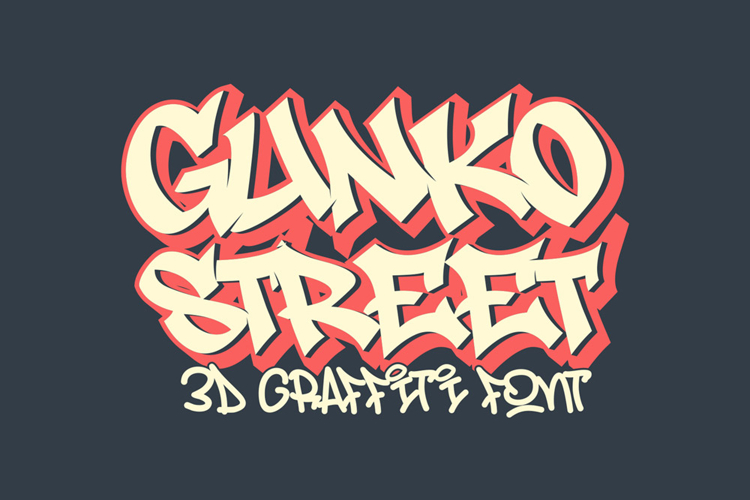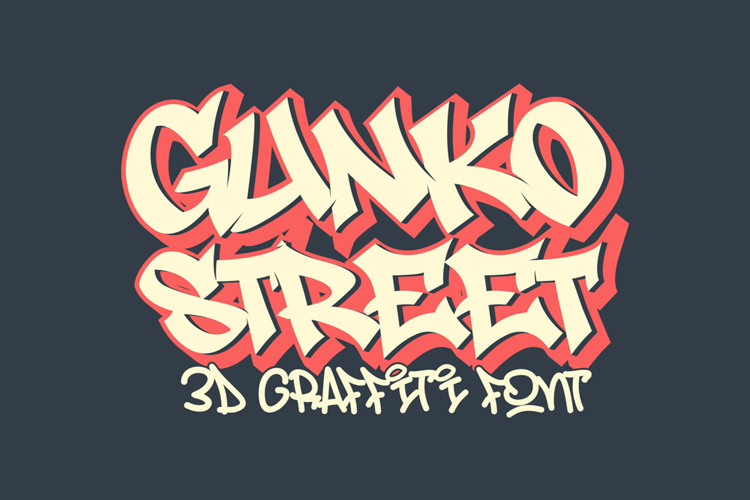
Gunko Street - 3D Layered Graffiti Font
Gunko Street is a striking 3D layered graffiti font built for designers who want loud, dimensional typography with a rebellious edge. With uppercase, lowercase, numbers, and punctuations, plus three styles—Base, Outline, and Shadow—you can create bold street-inspired headlines, poster art, game titles, and digital covers that pop off the screen.
Make Your Designs Pop with 3D Graffiti Energy If you want your text to command attention, Gunko Street delivers. Its layered construction allows you to mix and match styles for depth and color variation, making it perfect for urban-themed promotions, esports branding, music covers, and street art-inspired layouts. The letterforms have a freestyle graffiti vibe while staying highly legible in both print and digital formats.
Multilingual Support for Global Reach Gunko Street supports multilingual characters, giving you the freedom to design for audiences around the world. Whether your message is in English, Spanish, French, or beyond, this urban display font keeps your style consistent and impactful.
Key Features
- � 3D Layered Graffiti Style for depth and visual impact
- � Uppercase, Lowercase, Numbers, and Punctuation
- � Multilingual Support for global use
- � Ideal for posters, event flyers, game titles, and bold street-themed layouts
- � Designed for dynamic, high-impact designs that stand out
Why Designers Love Gunko Street
Designers choose Gunko Street for its versatility and style. The layered effect makes it easy to create dramatic, eye-catching compositions without complex editing. Its graffiti-inspired shapes carry authenticity, while the clean outlines keep text readable even in busy layouts.
Bring Street Art to Your Typography Whether you’re crafting an event poster, a high-energy game intro, or a music release visual, Gunko Street is the font that makes your work look bold, dimensional, and alive. Download it now and give your designs the 3D street attitude they deserve.